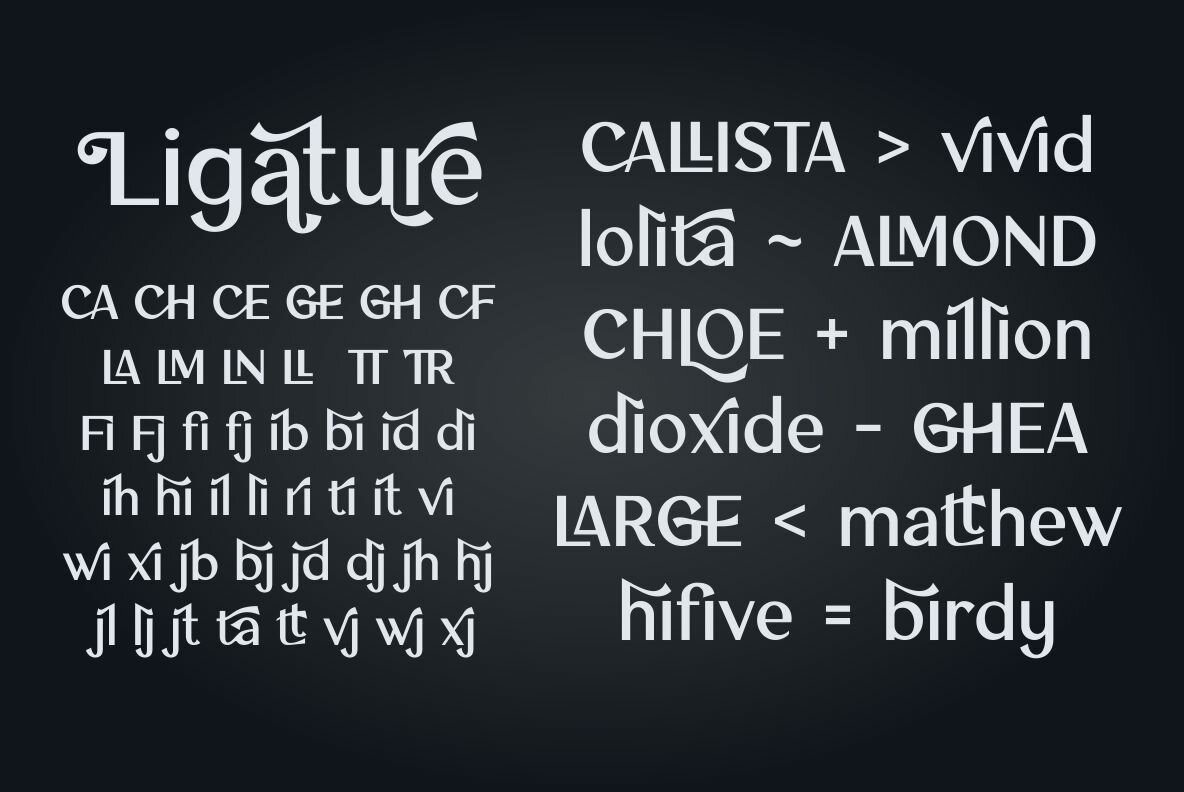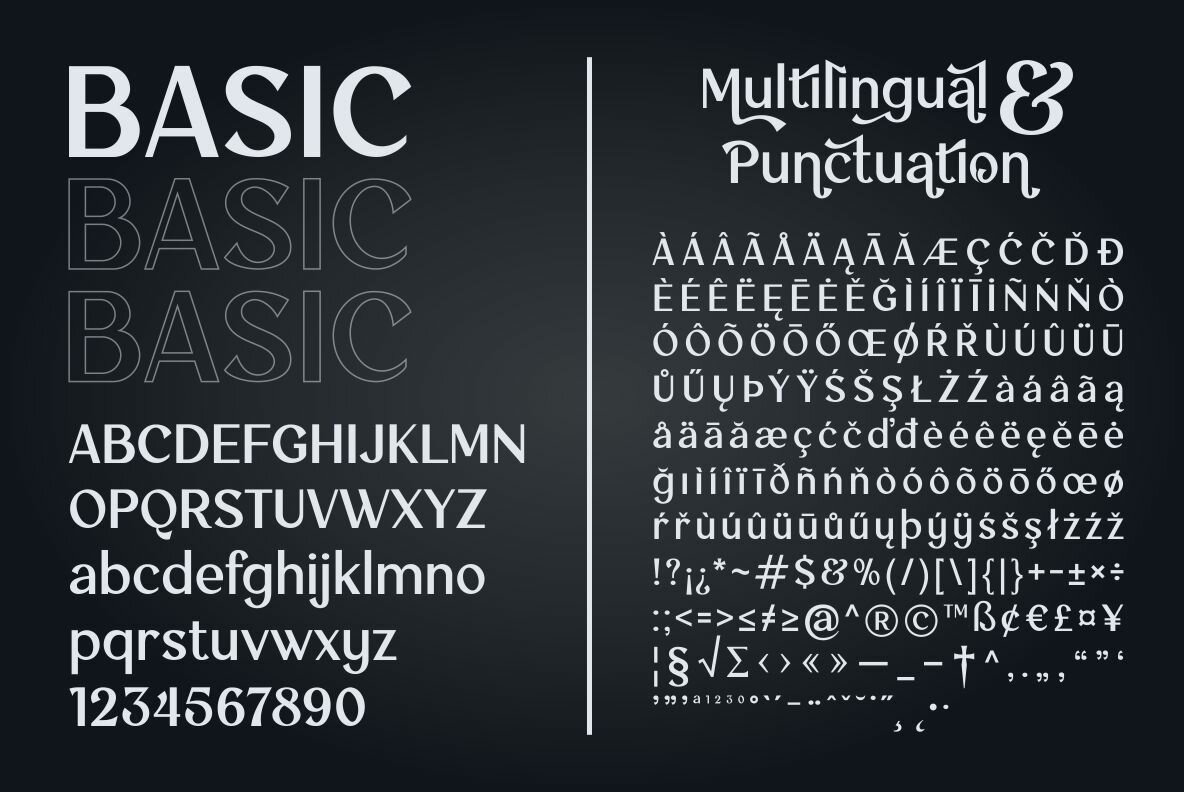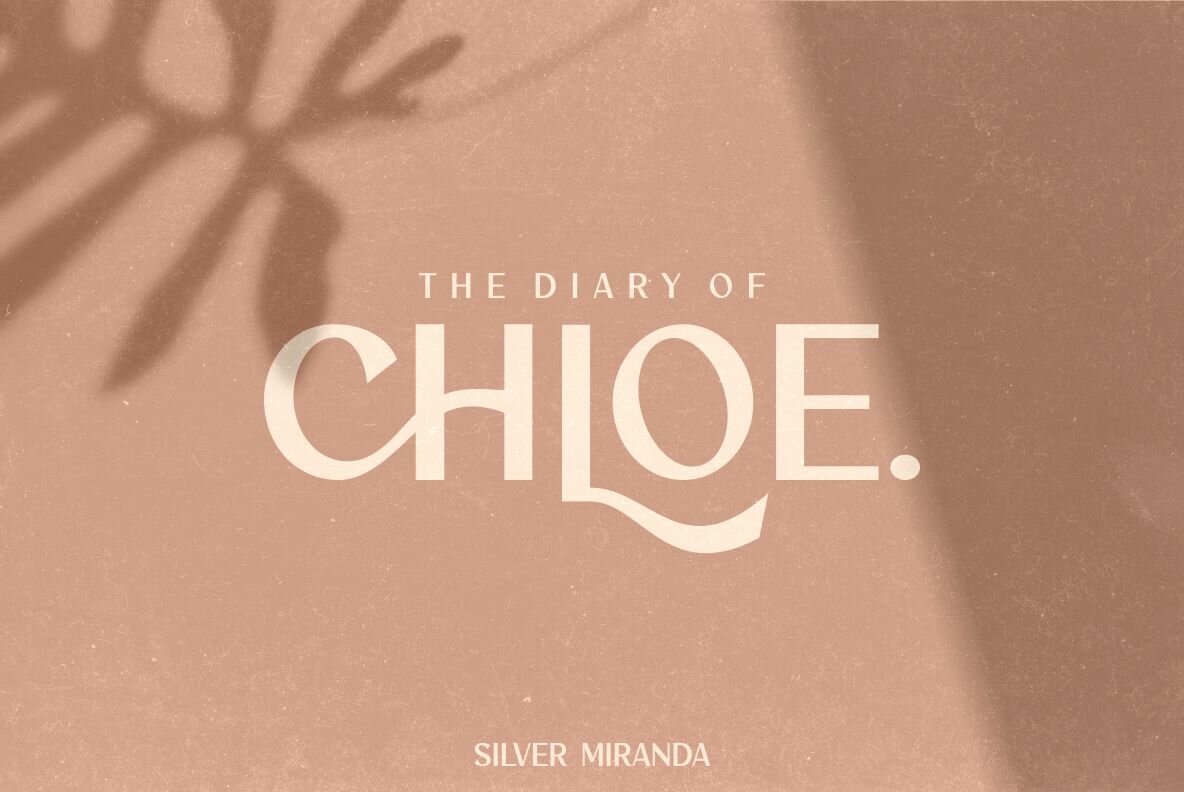
Silver Miranda Font
Silver Miranda
Silver Miranda is a sans serif display font with an elegant and classy appearance. Each typeface is crafted to produce a vintage modern font. This font features can direct you to access unique typeface collections. You can make works with clean elegant and professional writing, or make attractive decorative with alternates and ligatures style. This font is great for creating any desired projects such as logos, posters, headlines, albums, quotes, clothes and many more.
Silver Miranda font features opentype, kerning, alternates and ligatures style. Silver Miranda font include uppercase letters, lowercase letters, numeral, punctuation and multilingual support.